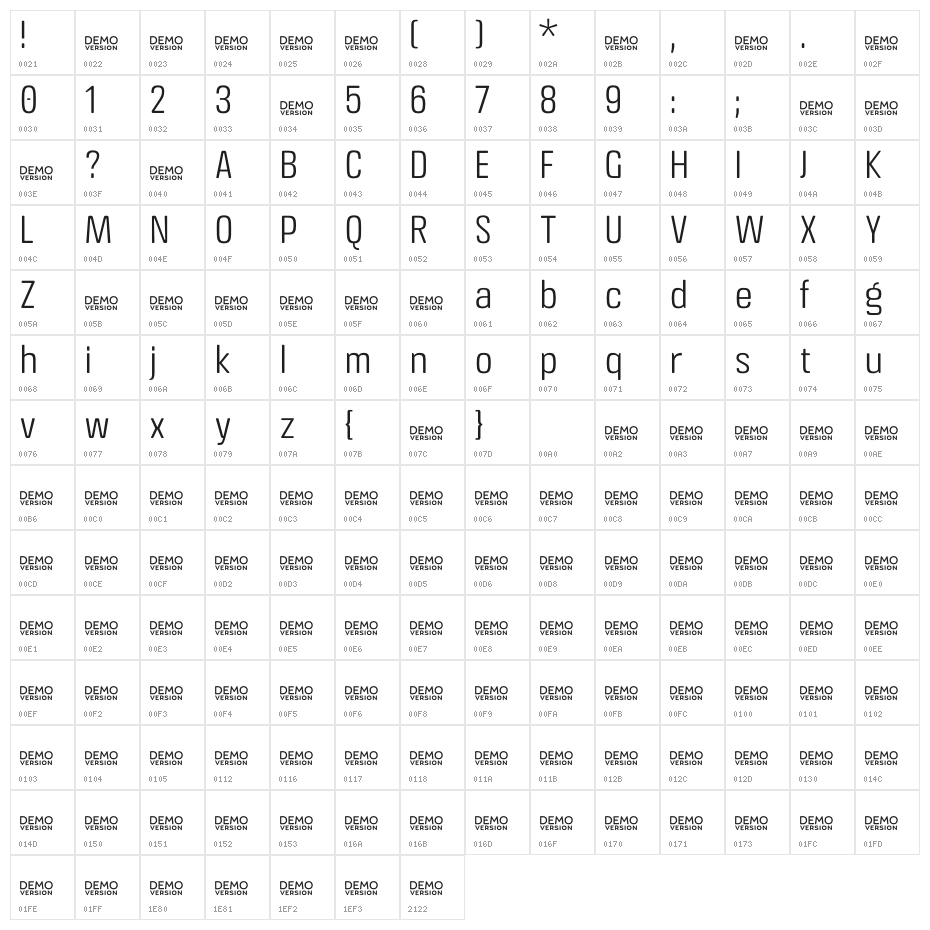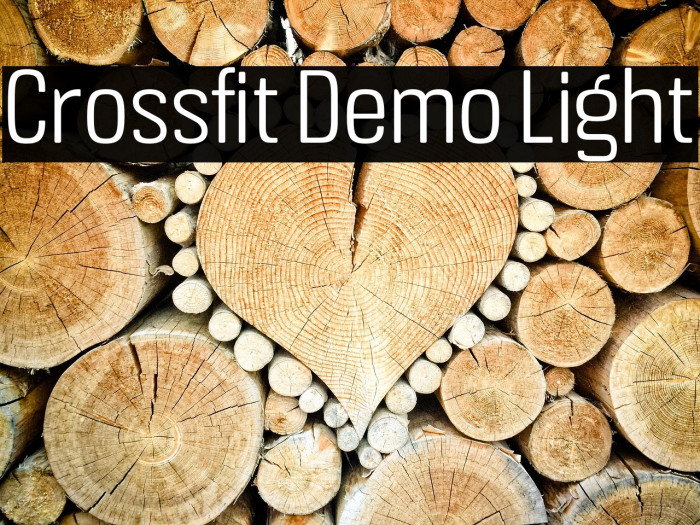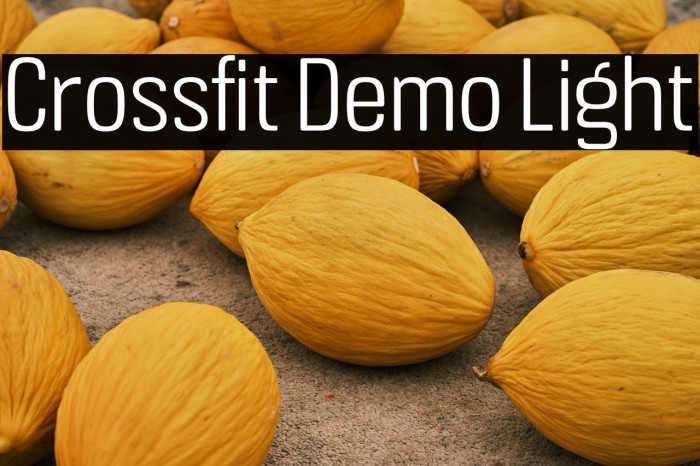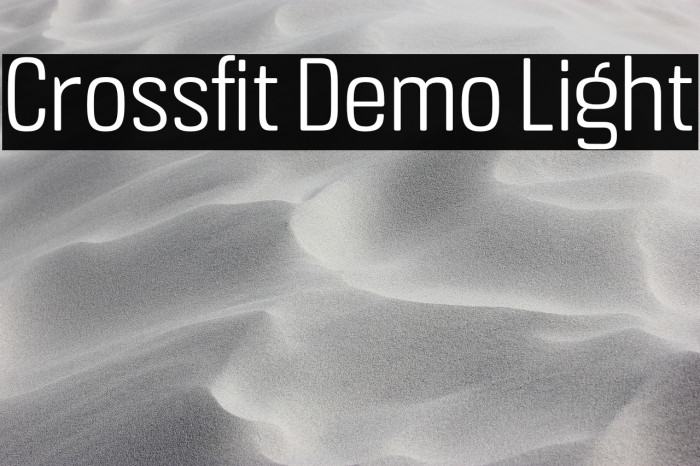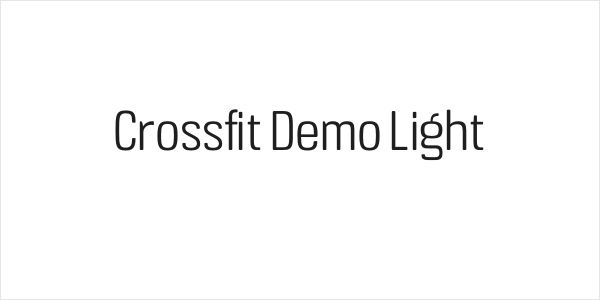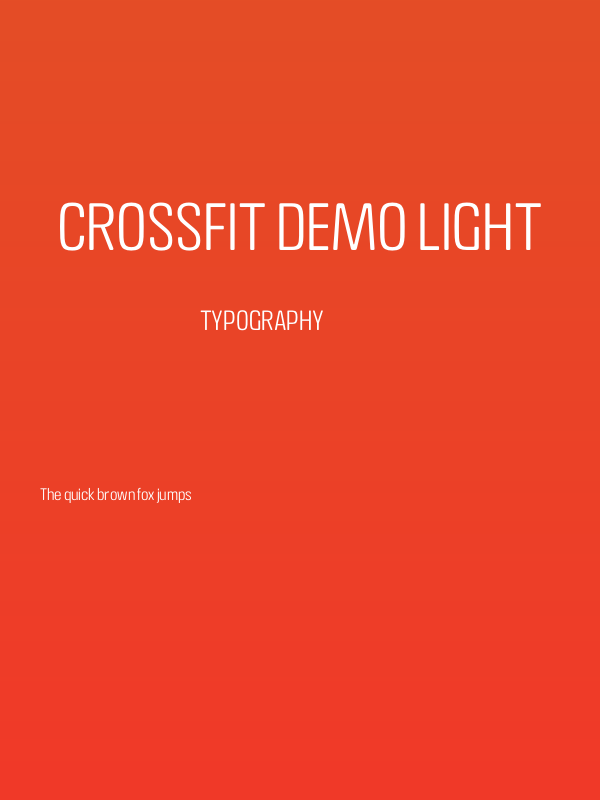
Crossfit Demo Light Font
Crossfit Demo Light Description
This font features a clean, modern design with a sans-serif style. The characters are tall and slightly condensed, giving a sleek and streamlined appearance. The strokes are consistent in width, contributing to a uniform look across all characters. The font maintains a balanced and open feel, making it highly legible. The numerals and special characters are designed to complement the alphabet, ensuring cohesive text presentation. Its simplicity and clarity make it versatile for various design applications.
| Proposed Projects | Ideal for branding, web design, and editorial projects where clarity and modernity are key. |